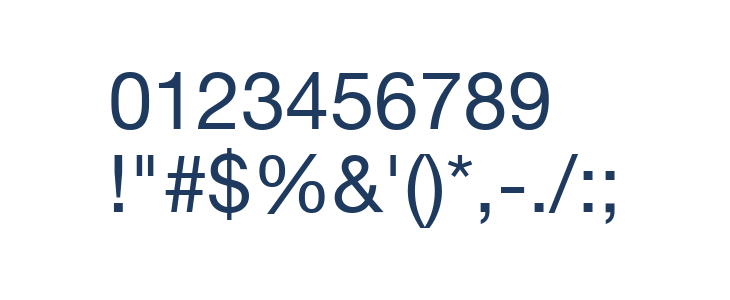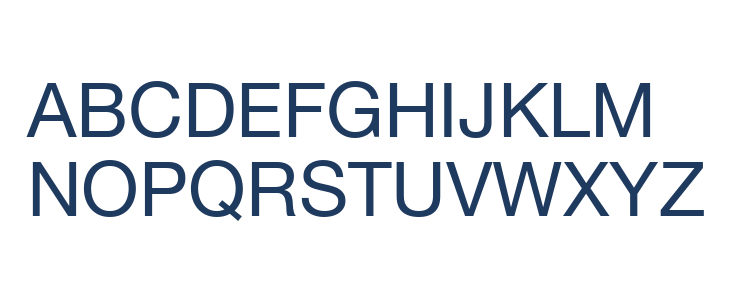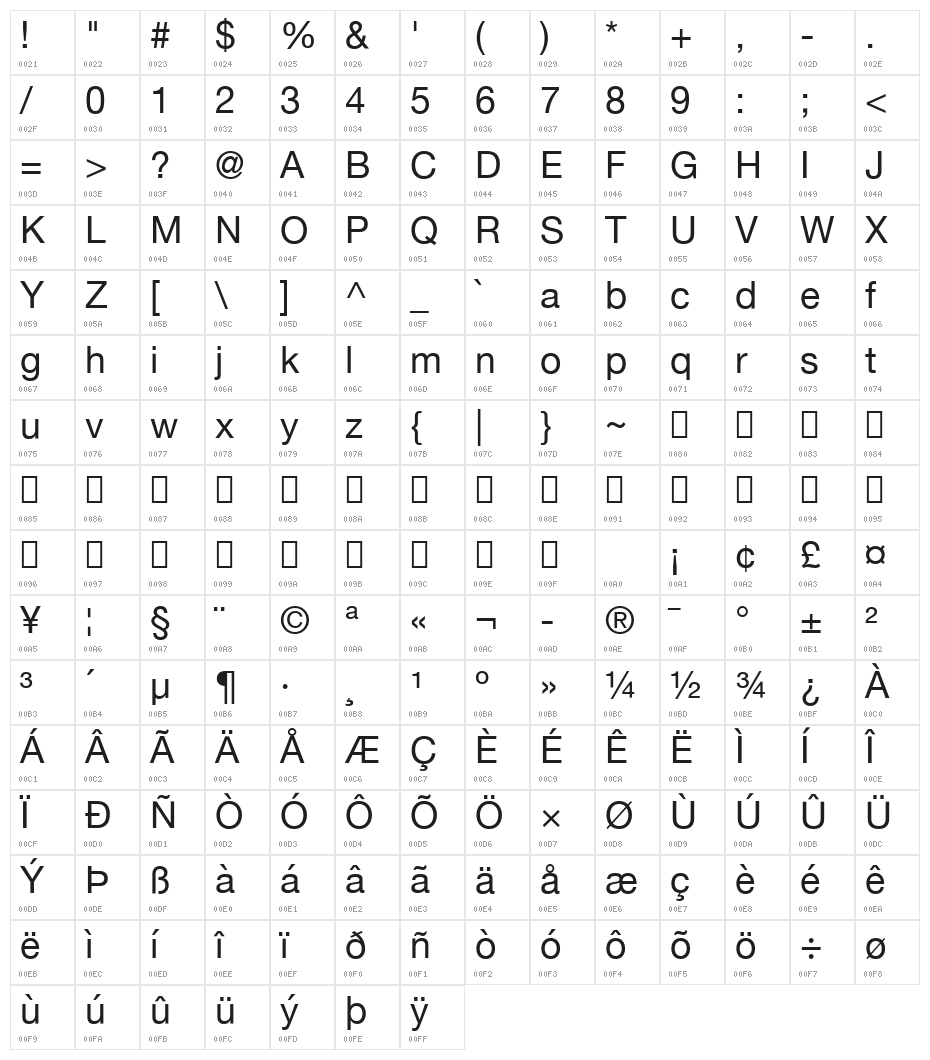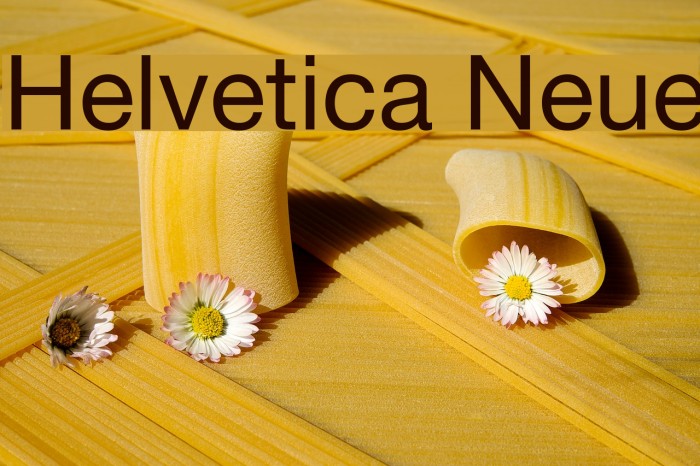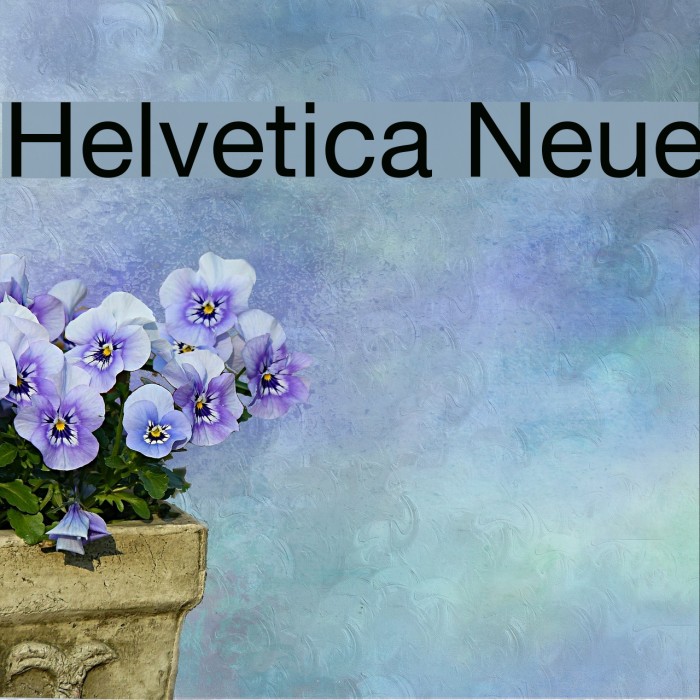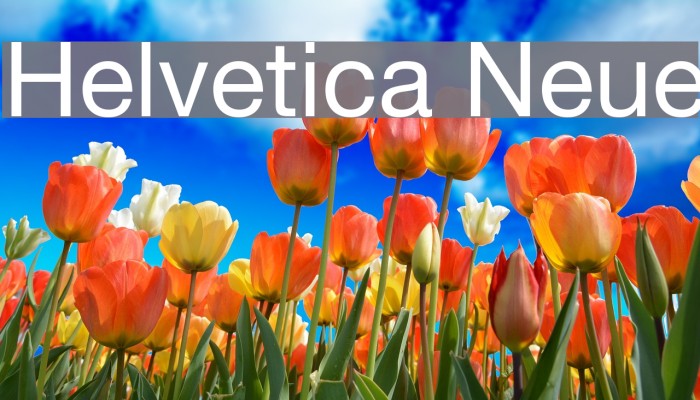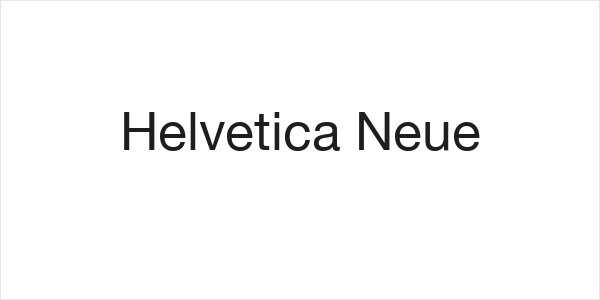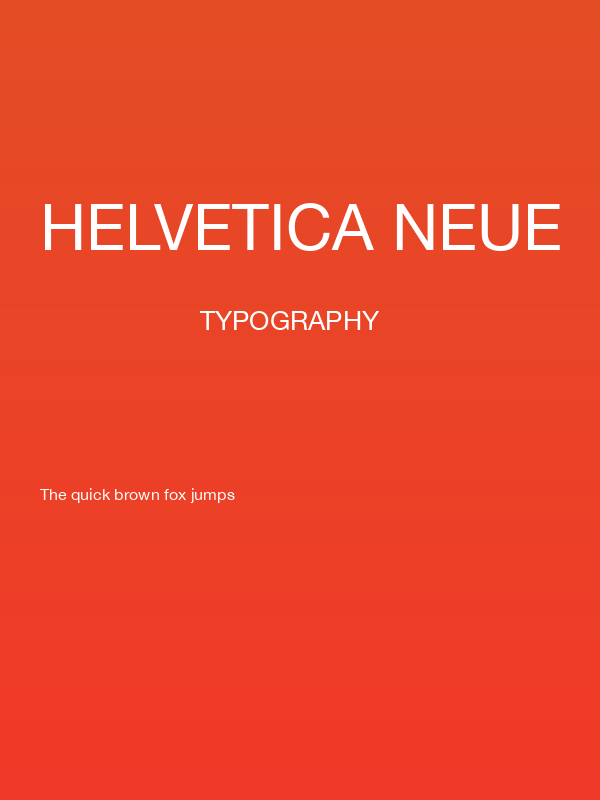
Helvetica Neue Font
Helvetica Neue Description
This font is a modern sans-serif typeface known for its clean and minimalist design. It features uniform stroke widths and a neutral, yet friendly appearance. The characters are well-balanced with a consistent height and width, making it highly legible across various sizes and media. Its simplicity and clarity make it a popular choice for both digital and print applications. The font's design emphasizes functionality and readability, with open counters and a straightforward structure that enhances its versatility.
| Proposed Projects | Ideal for corporate branding, web design, user interfaces, signage, and editorial layouts. |